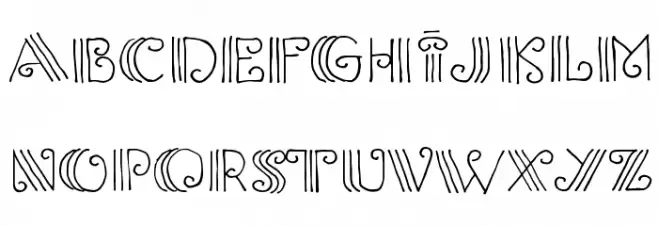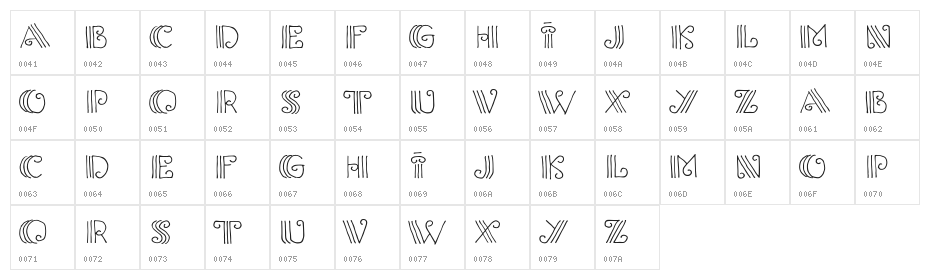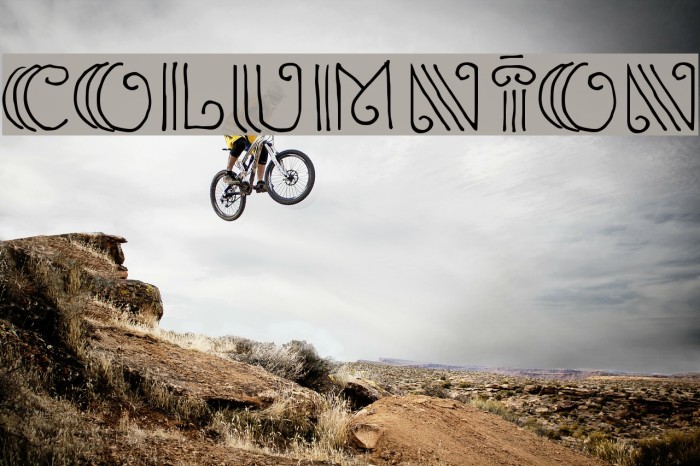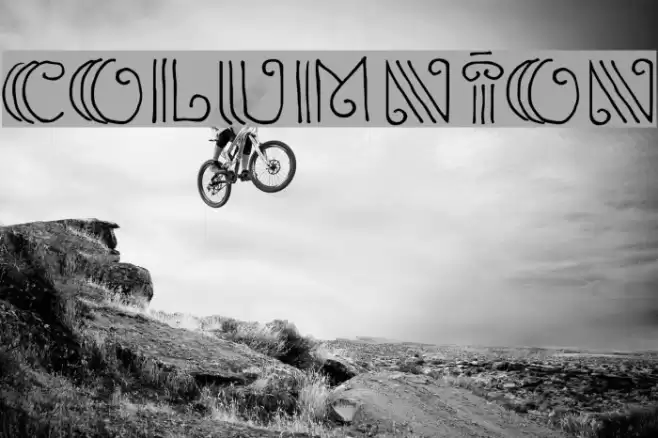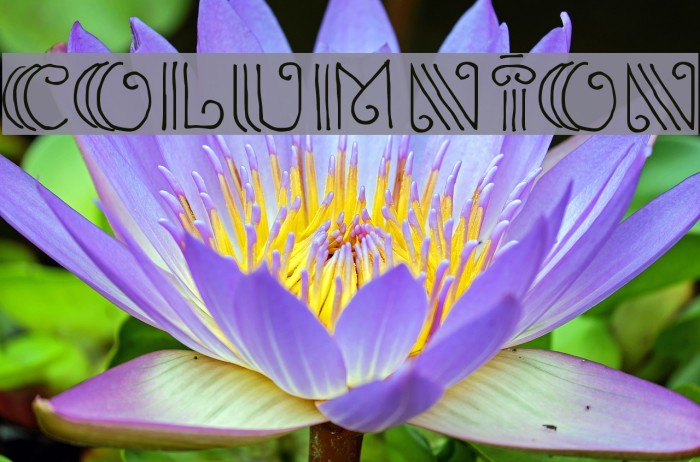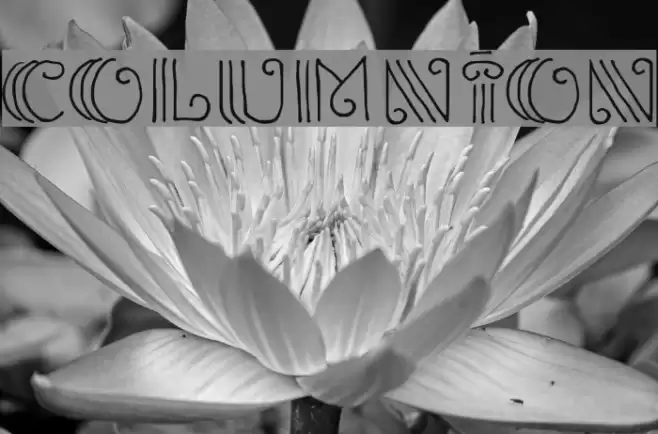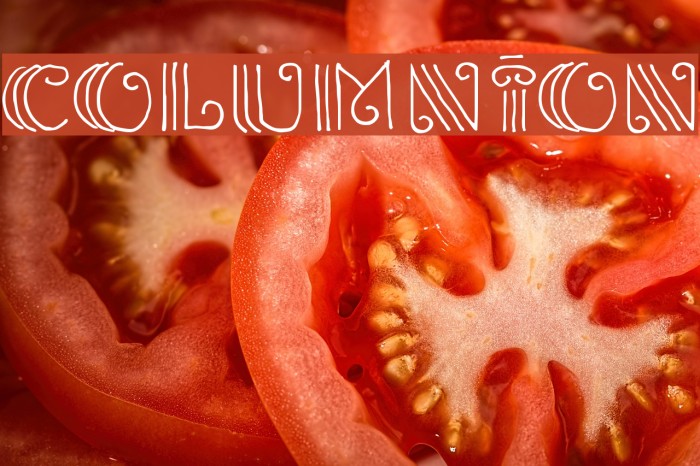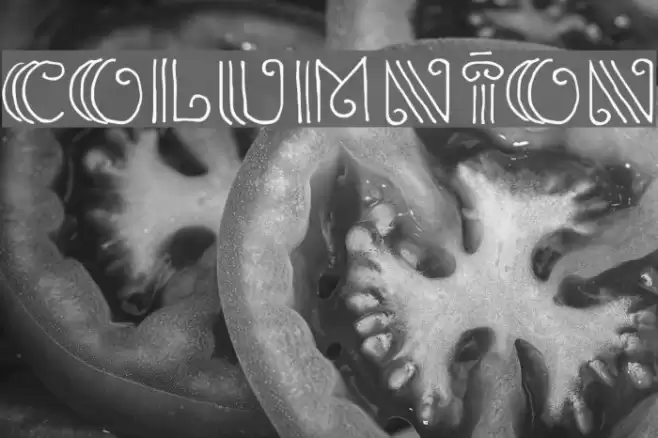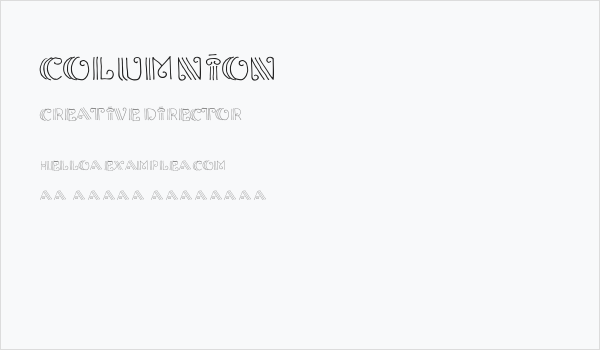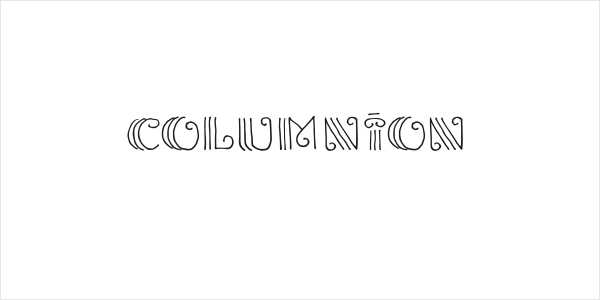
Columnion Font
Columnion Description
This font features a unique and decorative style characterized by its intricate line work and geometric patterns. Each letter is composed of multiple parallel lines that create a sense of depth and texture. The design incorporates both straight and curved elements, giving it a dynamic and artistic appearance. The font maintains a consistent structure across all characters, ensuring readability while offering a visually engaging experience. Its distinct style makes it suitable for creative and artistic projects where a bold statement is desired.
| Proposed Projects | Ideal for posters, album covers, branding, and artistic projects that require a bold and creative typeface. |